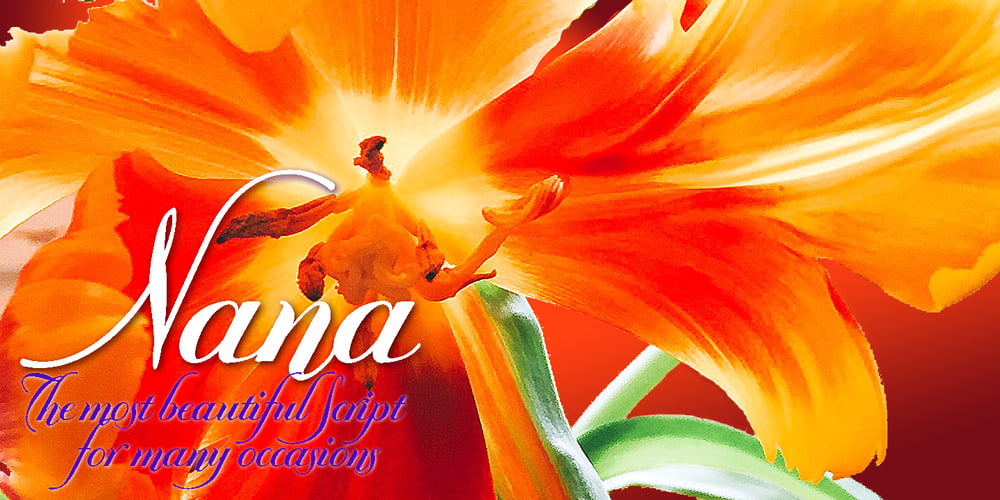
Nana Font Family was designed by Gert Wiescher and published by Autographis. Nana contains 1 styles and family package options. Nana is a classic joining script with long ascenders and descenders, that is based on a set of unique but forgotten initials that were designed in the roaring 20s and 30s in Paris.